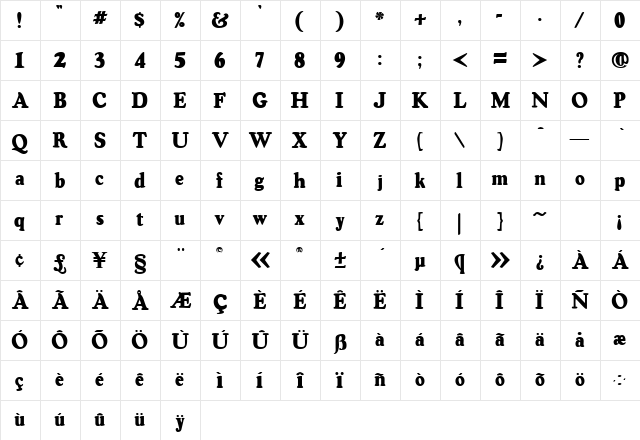
BeaconBlackSSK Regular
Design Context for BeaconBlackSSK Typeface
BeaconBlackSSK offers clean, dependable letterforms without strong stylistic allegiance, making it a practical choice for designers who need flexibility.
Pro Tip: Use BeaconBlackSSK in both headline and body roles to test its range before committing to a single application.